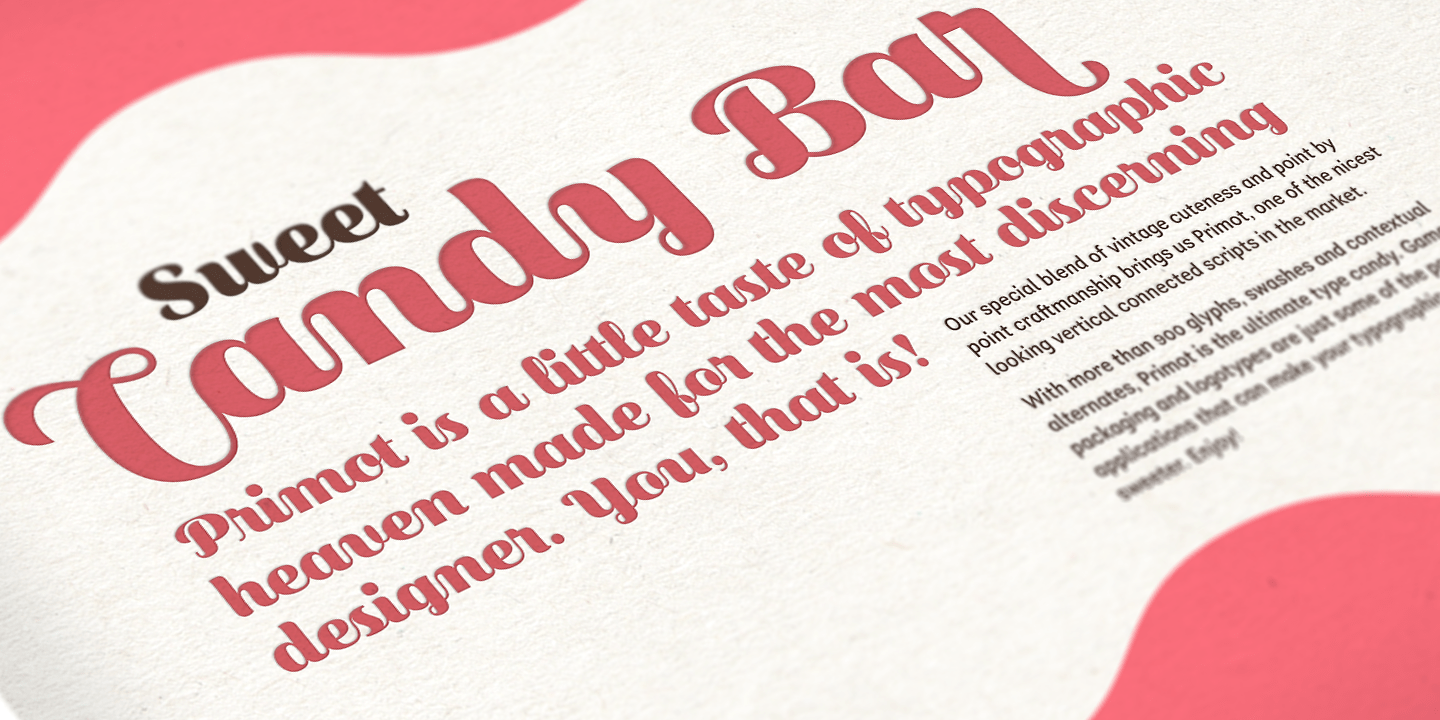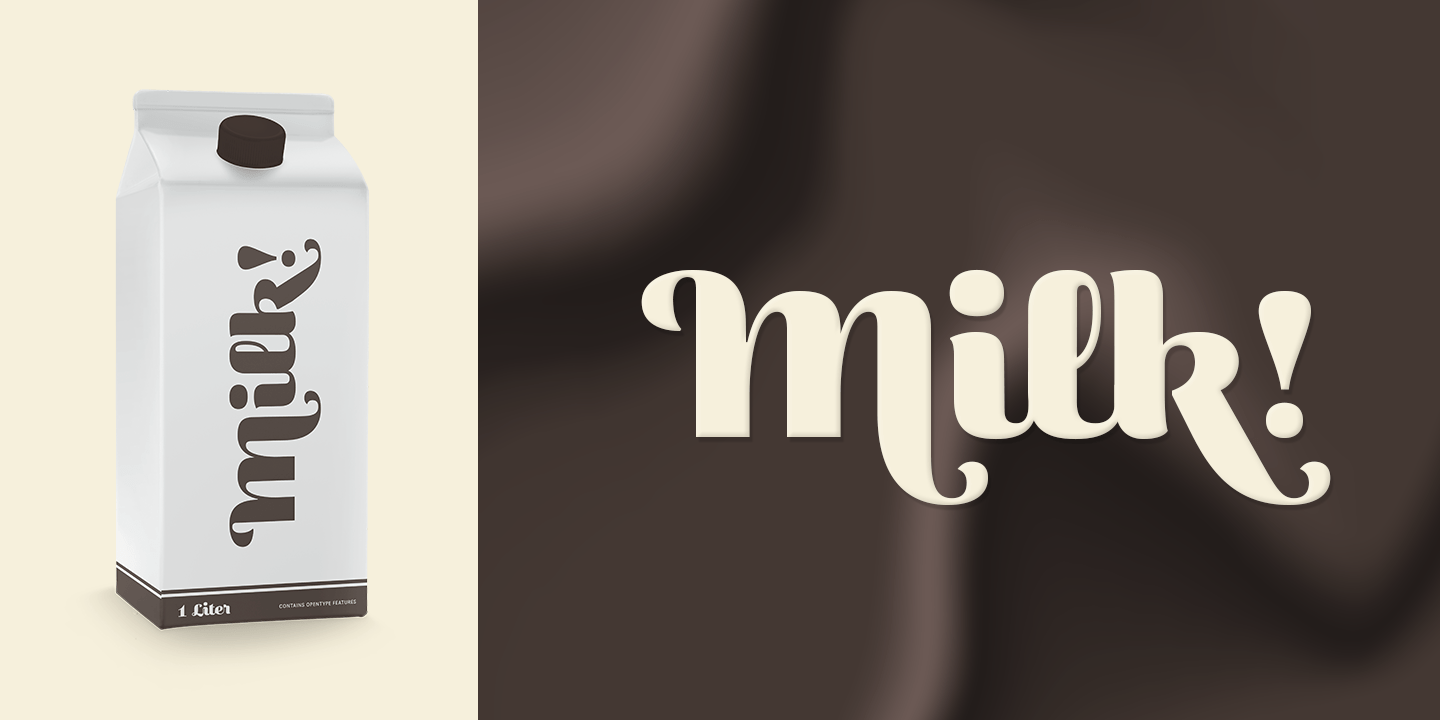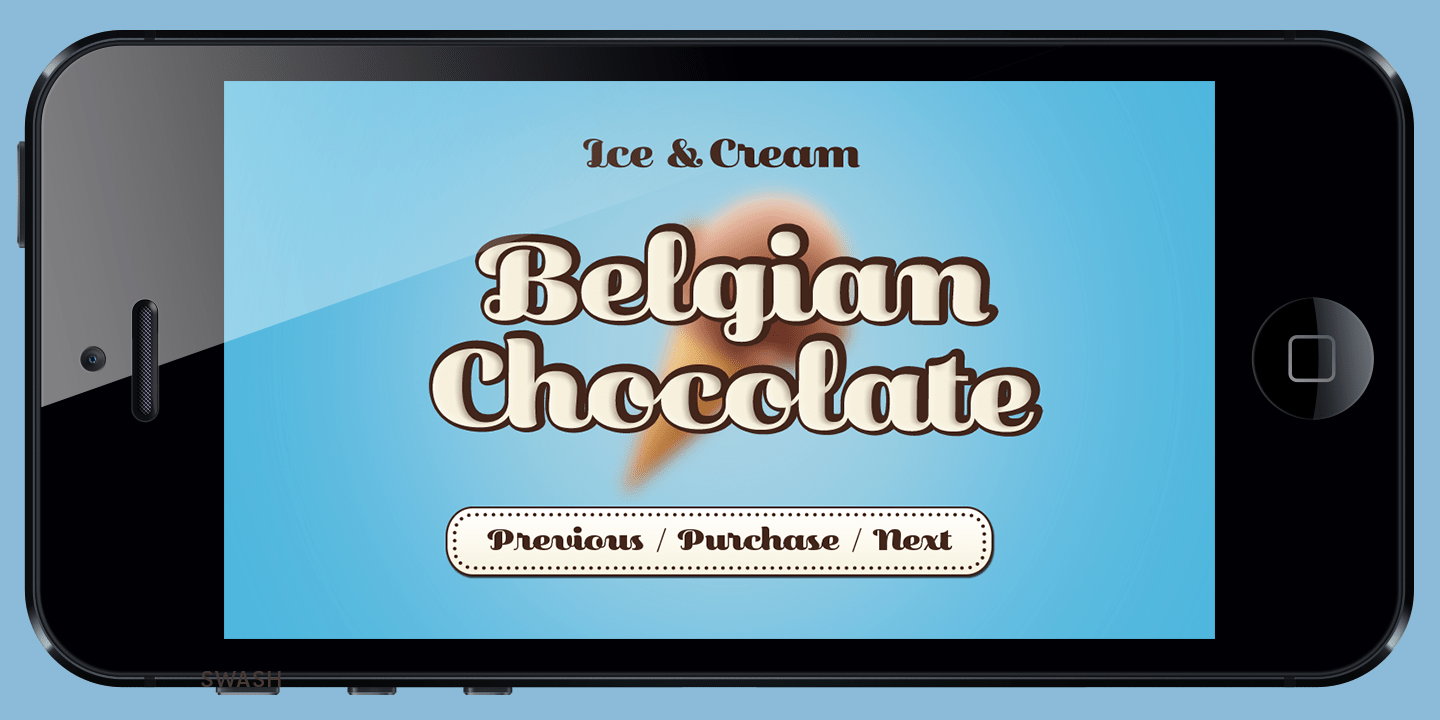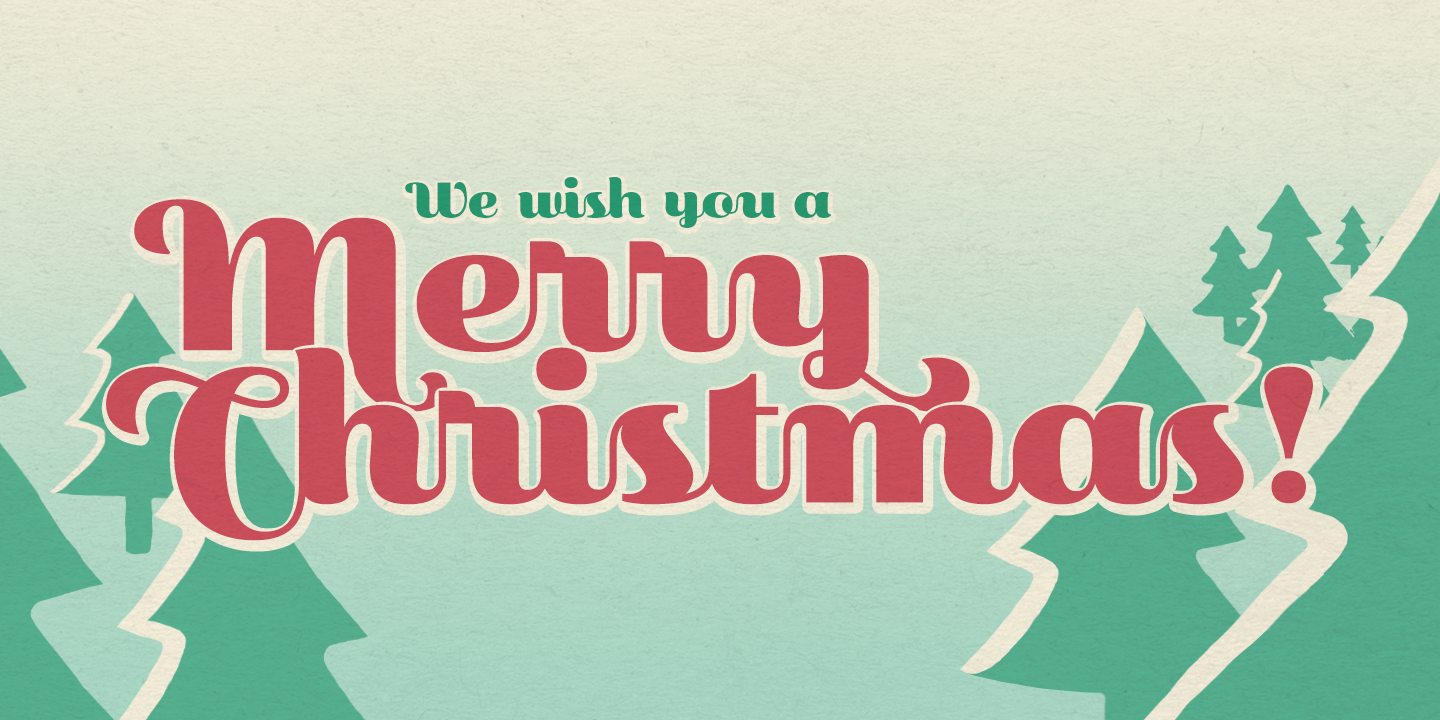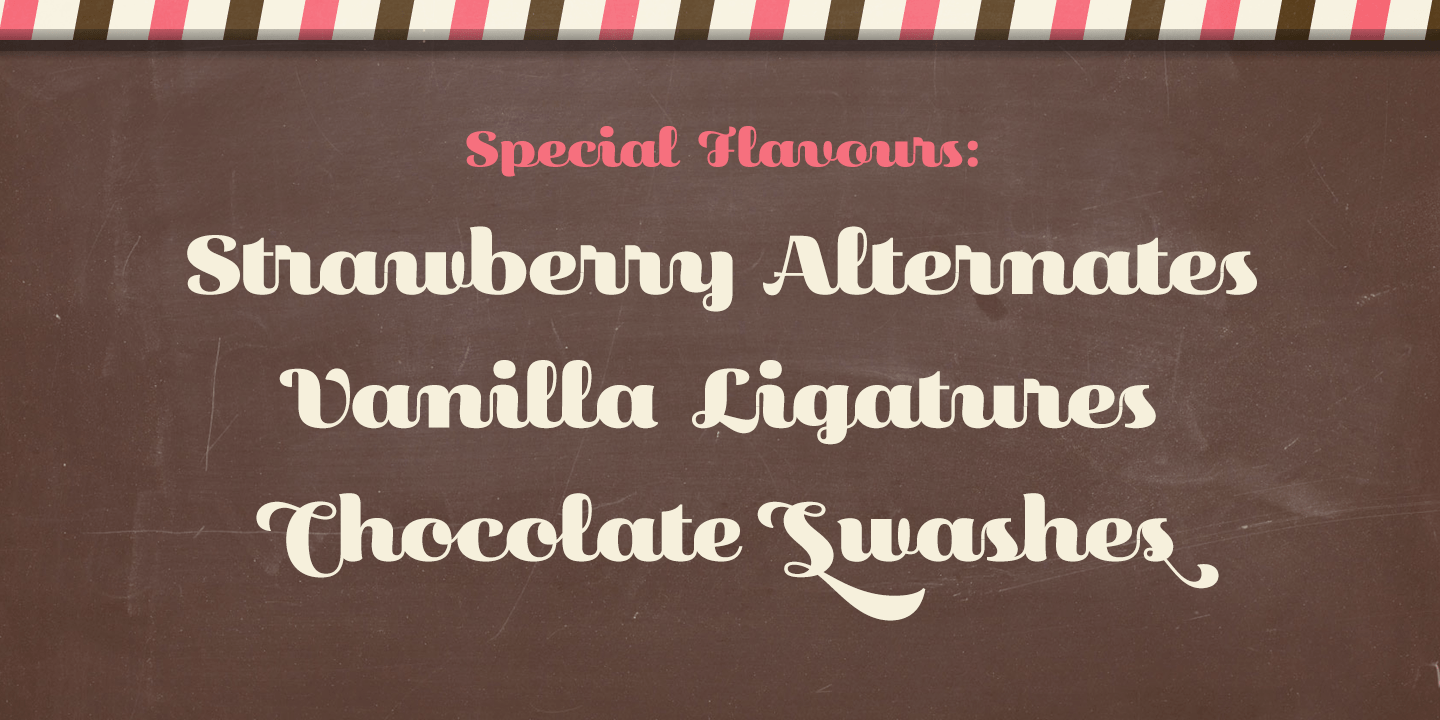
Primot
Primot is a vertical script heavily influenced by italian ?gelaterias?. After releasing 3 sans-serifs, we were looking for a fun learning opportunity. We started playing with brush lettering and looking into vintage scripts from different eras. Some cool things that made it into Primot were some unusual vertical connections and the sweet brush flairs in the letter endings.
From that point on, we set out to create a beautiful looking vertical script ? something we don't see that often ? in which each word set could would make a nice piece of graphic design (think logos, video game titles, shop windows etc.).
We also made it smart by including hand-lettering inspired features such as initial and final forms for letters, contextual alternates and swashes. The result is a versatile 900+ glyphs display typeface, suitable for a wide range of applications. We hope you have as much fun with it as we had designing it!